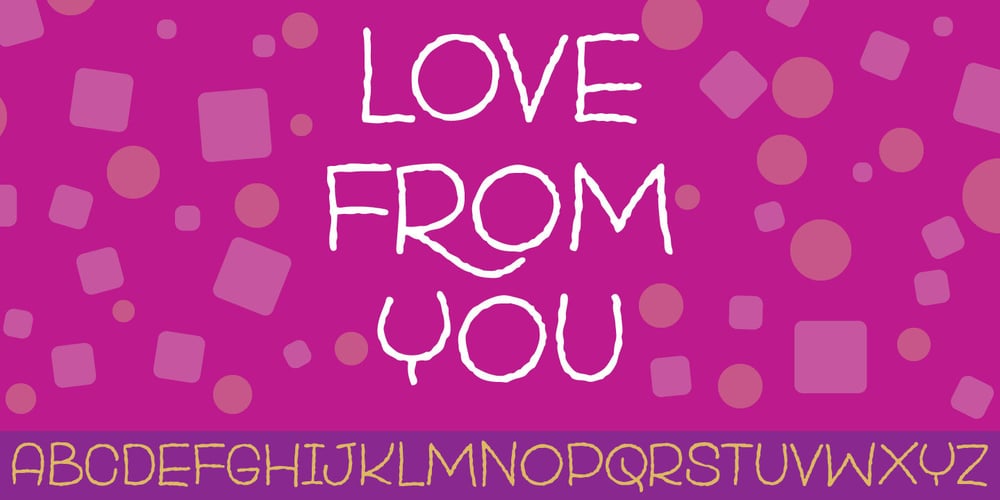
Love From Me
Love From Me font
Love From Me Font Family was designed by Jakob Fischer and published by PizzaDude.dk. Love From Me contains 3 styles and family package options. Love From Me is my love font – use for your wedding invitations, valentines cards, loveletters – or if you just need to be romantic! The font comes in three different versions: regular, heart and star – use them together and create more romantic vibes! All versions has got ligatures for double lettering, and different lower- and uppercase – and all versions even comes with stylistic alternatives! This way your text will look more like real handwriting!